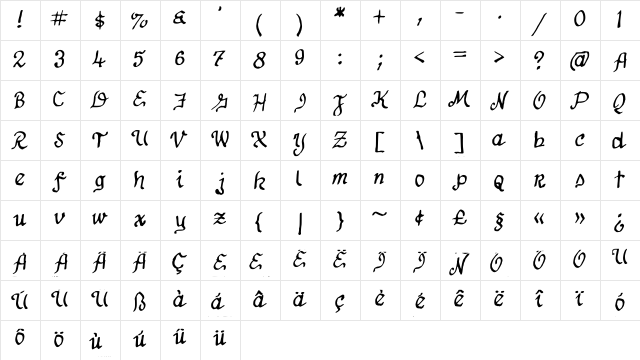
12Stepsmain Medium
Design Context for 12Stepsmain Typeface
12Stepsmain takes a measured approach to typography — its balanced proportions and neutral character make it a reliable workhorse for both digital and print work.
Pro Tip: Use 12Stepsmain in both headline and body roles to test its range before committing to a single application.